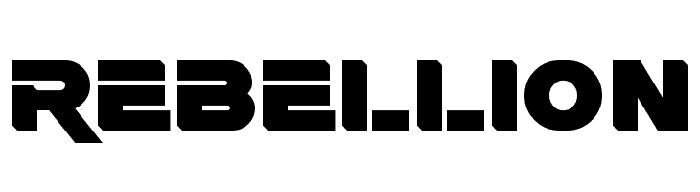
A long time ago — or maybe more recently — “Star Wars” fonts became sought after by web designers and fans everywhere. Whether you’ve been a fan since the first “Star Wars” movie was released in 1977 or you’ve come on board more recently with the prequel and sequel trilogies, there’s no denying it has a tone and look that’s distinctly otherworldly. From the moment Mark Hammil appeared on film as Jedi fighter Luke Skywalker, “Star Wars” began permeating our culture and the way we saw outer space.
The first film, “A New Hope,” started with a logo that was wide yellow typography with a tapered top. The familiar scrolling words “A long time ago, in a galaxy far far away …” naturally moved the logo toward that slanted look.
However, before the film was released, creator George Lucas asked for the logo to be reworked. The final result was an outlined type that lost the slant and a logo that extended out on the ends, making the words look as though they are almost in motion.
Designer Suzy Rice put the final touches on the logo after Lucas told her to make it look “fascist” and used Helvetica Black as her starting point.
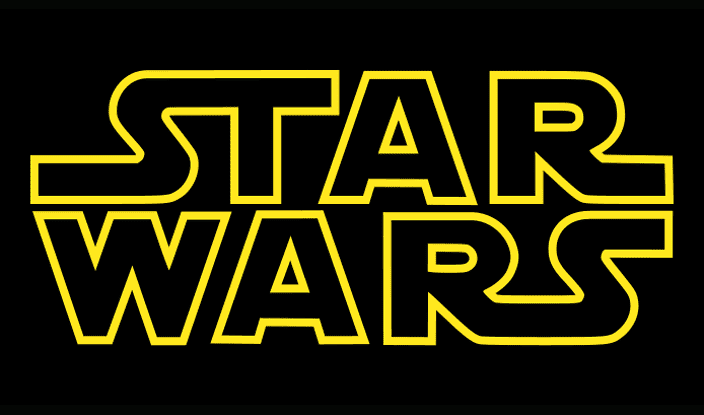
As graphic design and cinematography advanced, the logo and credits became more refined, but future titles still kept the fat letters. The franchise also handles subtitles for subsequent series by placing an open frame around it and the “Star Wars” logo.
“Star Wars” fonts have a distinct look to them that is instantly recognizable. If you’re looking for the best font for your project, here are several choices that might help you get the same look and feel as your favorite movie.
1. Star Jedi
If you’re looking for “Star Wars” fonts that are an exact copy of the original logo, then Star Jedi is an excellent option. Note the heavy weight of the font and the extended serifs on either end. It leaves the inside of the letters open and transparent so they’ll show the background, which is a nice technique for logos and headers.
2. Star Jedi Logo Monoline
Also created by Boba Fonts, the Star Jedi Logo Monoline offers a frame containing the lettering for the title of the series and an open frame with the subtitle in the middle. Out of the various “Star Wars” fonts on the internet, this is one of the most advanced, allowing designers to create a logo similar to any of the prequels or sequels with minimal effort.
3. Star Wars Embroidery
Star Wars fonts for embroidery need to be a bit different so the sewing machine translates it into something readable. Take a look at the Star Wars Embroidery font in SVG format. It’s made specifically for embroidering cloth products such as T-shirts, bags and blankets.
4. StarWars Kit
StarWars Kit by Tom Mouat features silhouettes of some of the main characters appearing in “Star Wars.” If you’re looking for icons or images to enhance other things you’re doing, this is a good choice. A map on the download page shows what letter aligns with what character. For example, a small G is R2D2 and the Z is Darth Vader.
5. Episode One
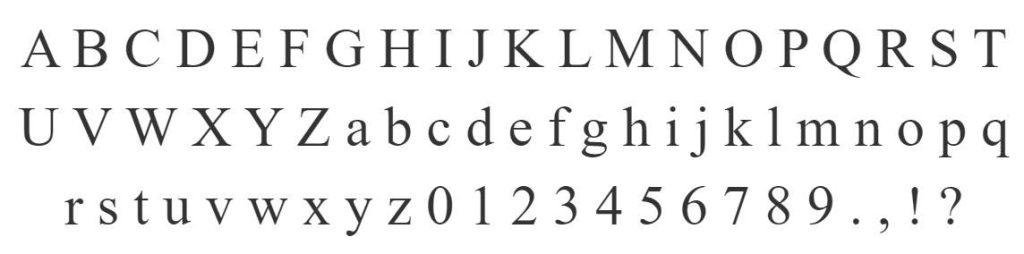
If you’re looking for “Star Wars” fonts used in movie subtitles, then Episode One is very similar to the font used in “The Phantom Menace.” This font gives a hint of “Star Wars” for fans without being quite as obvious as some of the other choices. If you are looking for a good subtitle font, Episode One offers a lot of flexibility. Note the tall axis of the letters and the extended serif of the letters J and Q. The other serifs are thin and tapered, providing an elegant look.
6. Jabba the Font
Need “Star Wars” fonts that don’t exactly repeat the logo’s look but still give a taste of the movie saga? Jabba the Font is a fun poke at Jabba the Hutt, who originally appeared in “Return of the Jedi” in 1983. Jabba the Font is a jumbled mess, similar to the character himself. It isn’t an easy font to read, so use it sparingly for effect. Jabba the Font was designed by typographist Michael Moss.
7. Soloist
Soloist font offers a nod to the infamous space smuggler Han Solo, played by Harrison Ford in the original trilogy. The font has the fat, bold letters of the “Star Wars” logo, but they are a bit shorter. The entire font is also slanted slightly to the right. Some of the versions include a broken line version, with several lines going through the top to add some movement to the letters, and both open and closed type.
8. SF Distant Galaxy Symbols
SF Distant Galaxy Symbols offers more symbols to enhance your overall “Star Wars” design. With sets like this one, you gain access to movie titles and subtitles, as well as “Star Wars” type to create headers and logos.
Keep in mind that while many “Star Wars” fonts are free to use, you have to be careful about commercial use and check the licensing agreements for each one. Some will let you use it for a business website and only ask you not to resell it in a package.
Other Font Choices
You might think “Star Wars” falls into the science fiction category, and searching for space fonts will certainly turn up some choices that might work. However, many consider the series a fantasy, so don’t rule out fonts that fall into that category either. When all else fails, you can start with a basic choice such as the Helvetica Black and add in elements to make it your own. With a bit of practice, you’ll find the perfect “Star Wars” fonts for your projects.